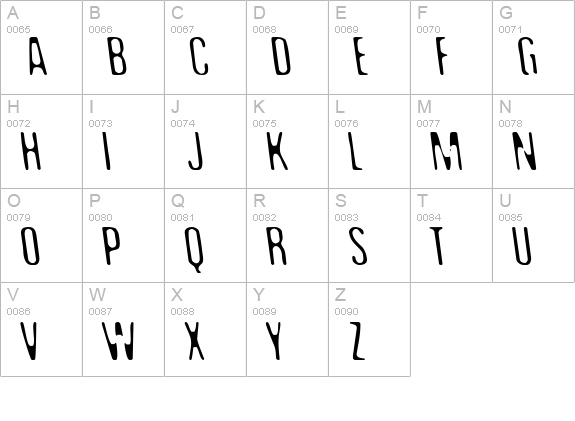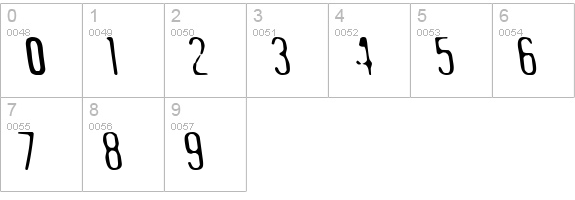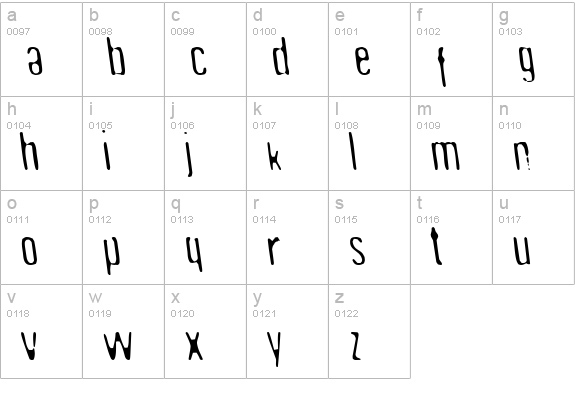
Introducing Undo36, a mesmerizing font that effortlessly combines elegance with a contemporary twist. This unique typeface is designed to make a statement, capturing attention with its sleek lines and captivating curves. Undo36 exudes a sense of sophistication and modernity, making it the perfect choice for any creative project that aims to stand out from the crowd. With its versatile nature, Undo36 can be applied to a wide range of design concepts, from branding and advertising to editorial layouts and website designs. Its clean and legible letterforms ensure readability across various mediums, while its distinct personality adds a touch of character and flair. What sets Undo36 apart is not only its stunning aesthetics but also its accessibility. This font is freely available to download at FontsMarket.com, allowing designers and enthusiasts alike to unleash their creativity without any limitations. Whether you're a seasoned professional or just starting your design journey, Undo36 offers an opportunity to elevate your projects with a touch of elegance. So, why wait? Download Undo36 now and experience the freedom of artistic expression. Let this font be your creative companion, empowering you to craft visually stunning designs that leave a lasting impression. With Undo36, the possibilities are endless, and the results are bound to amaze.